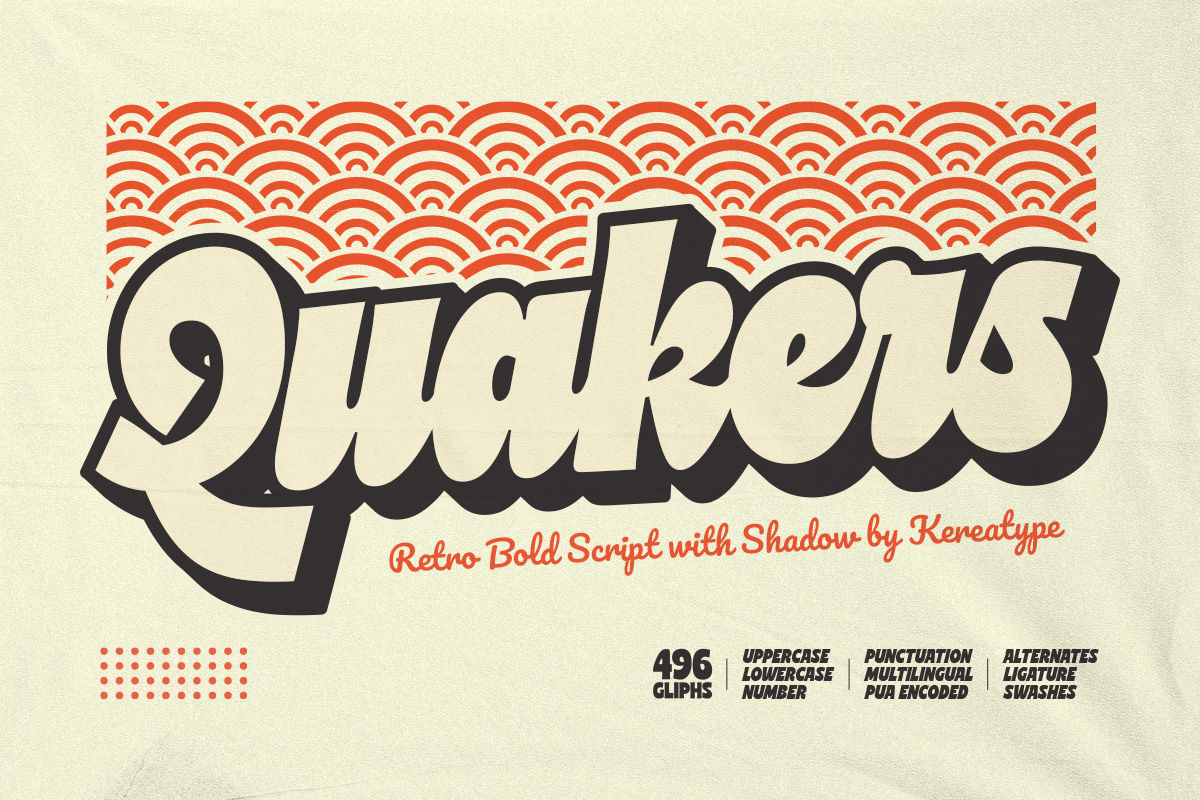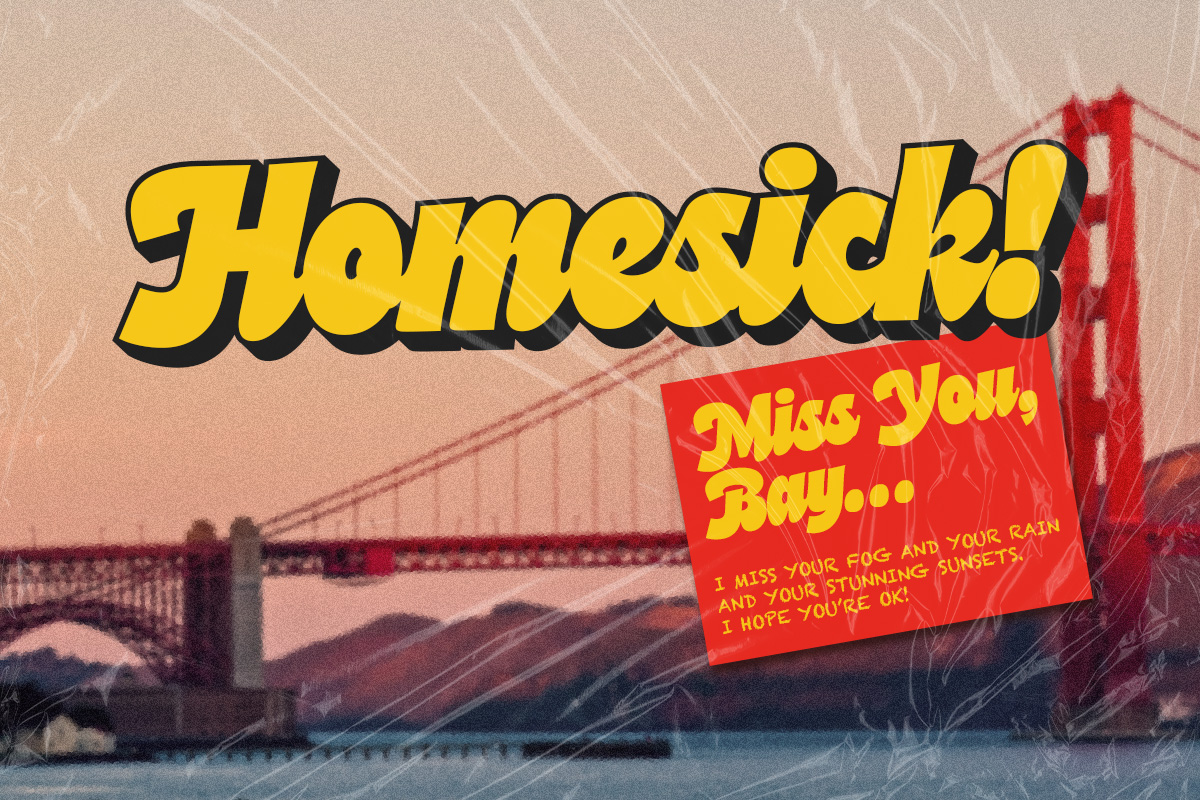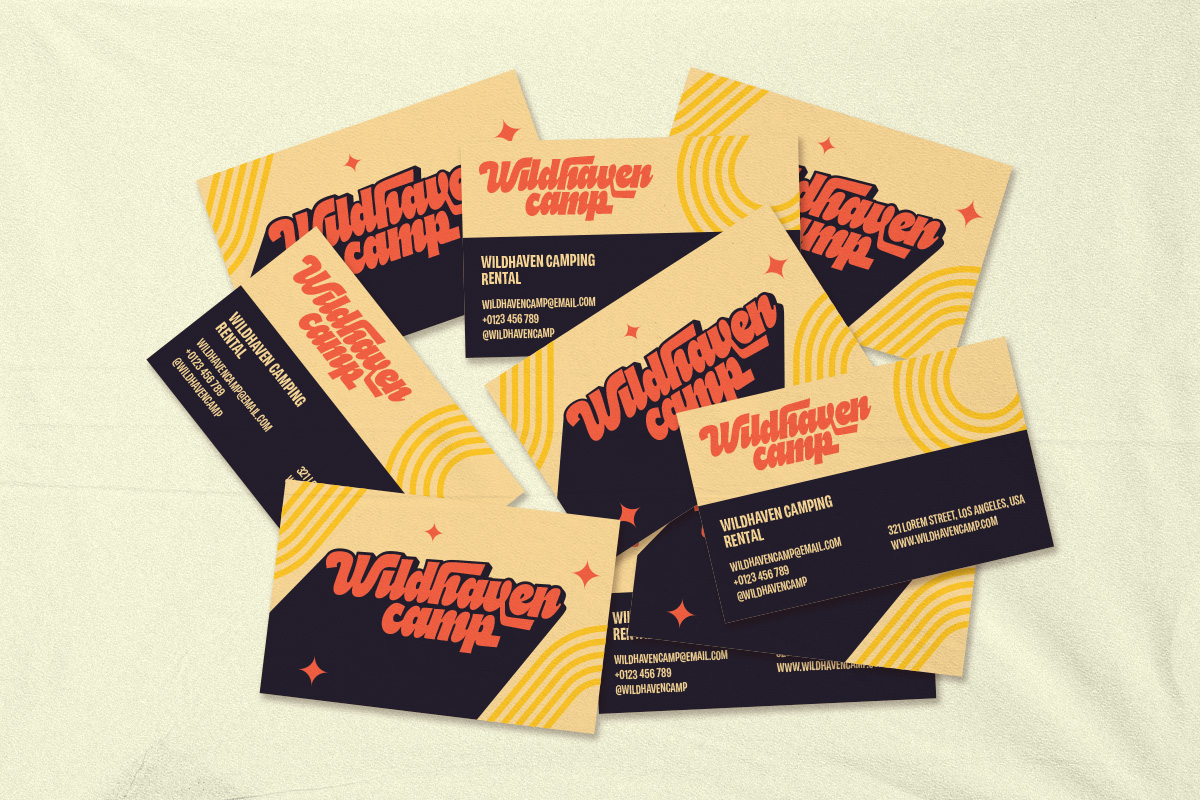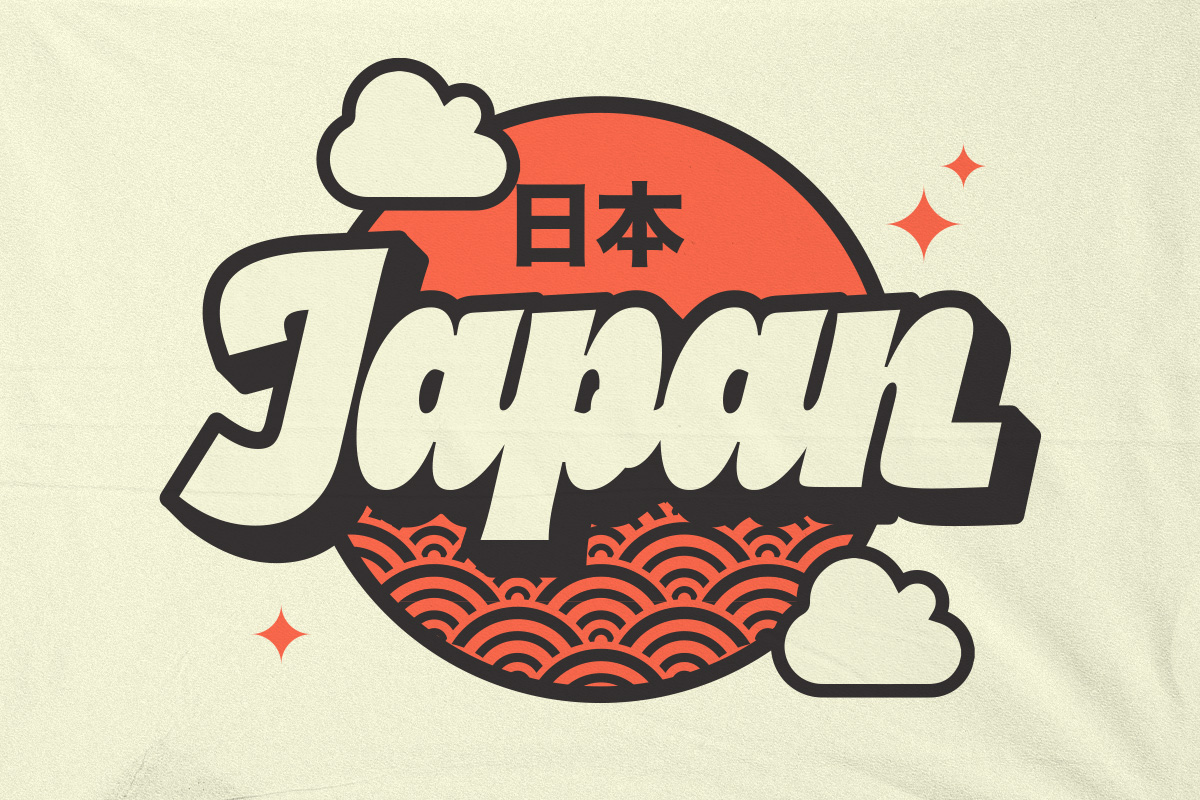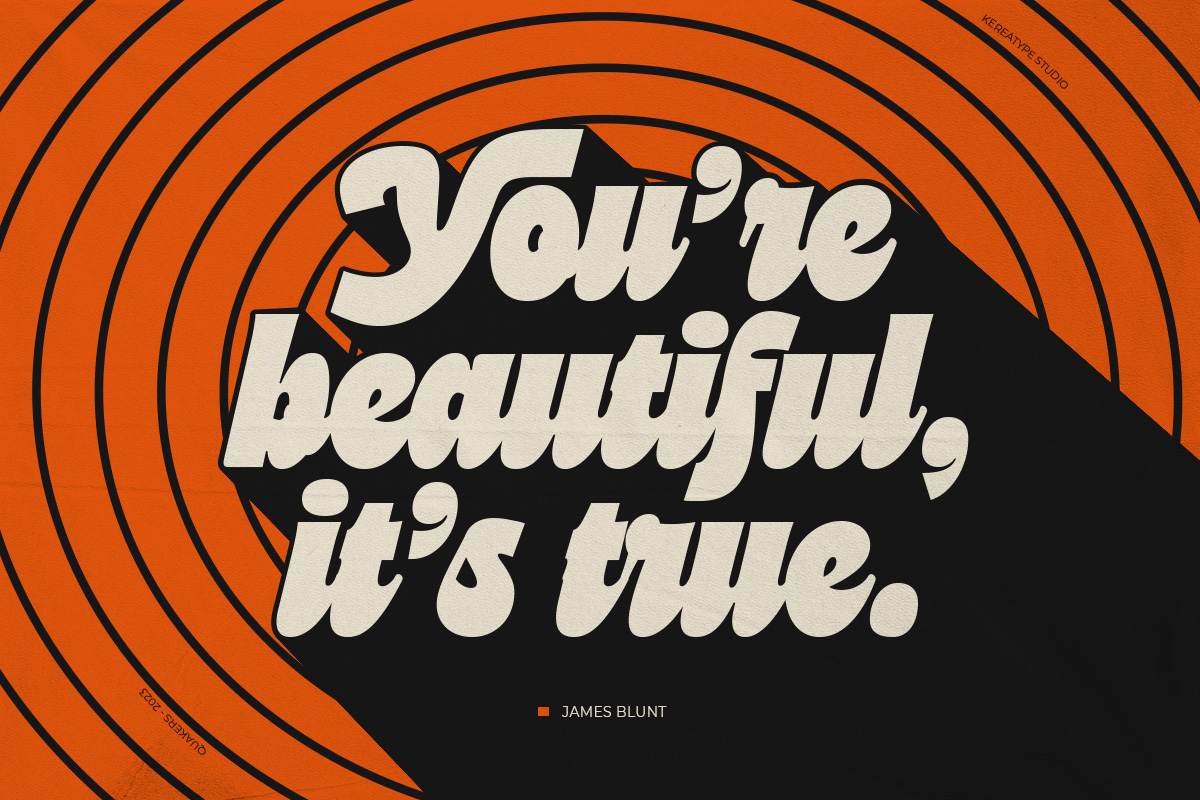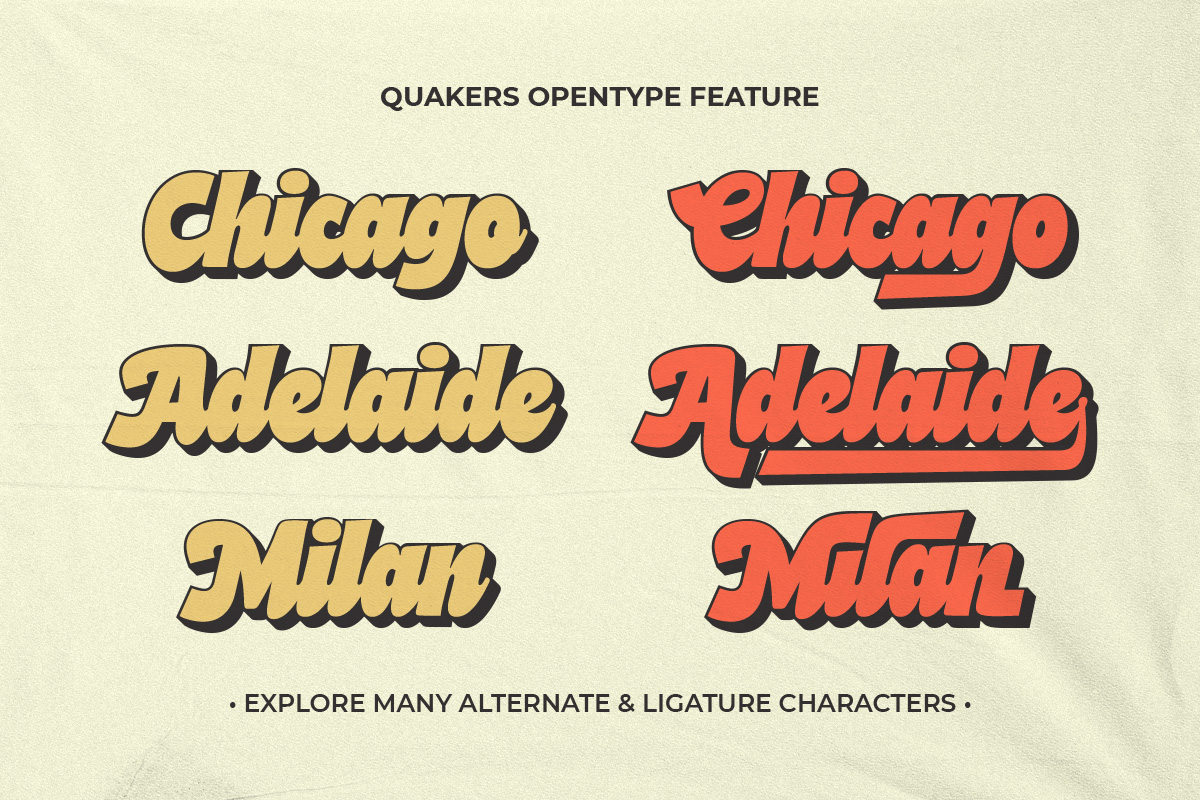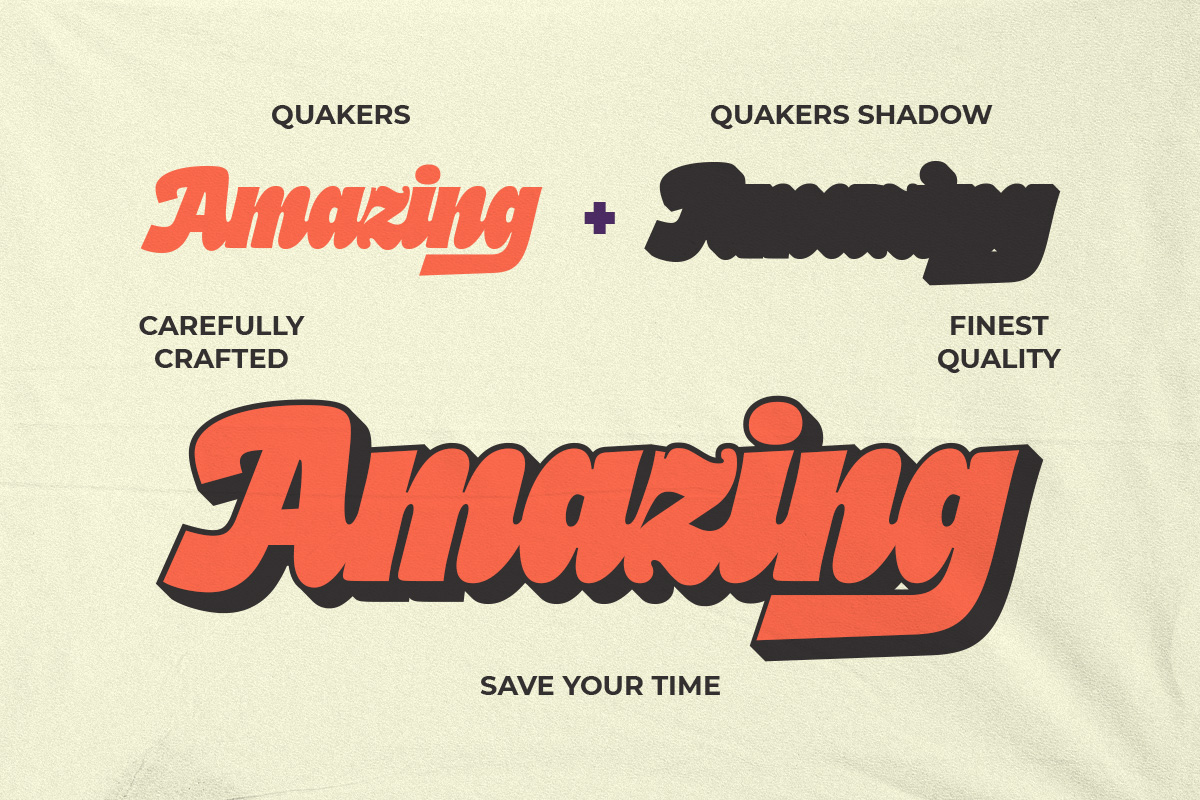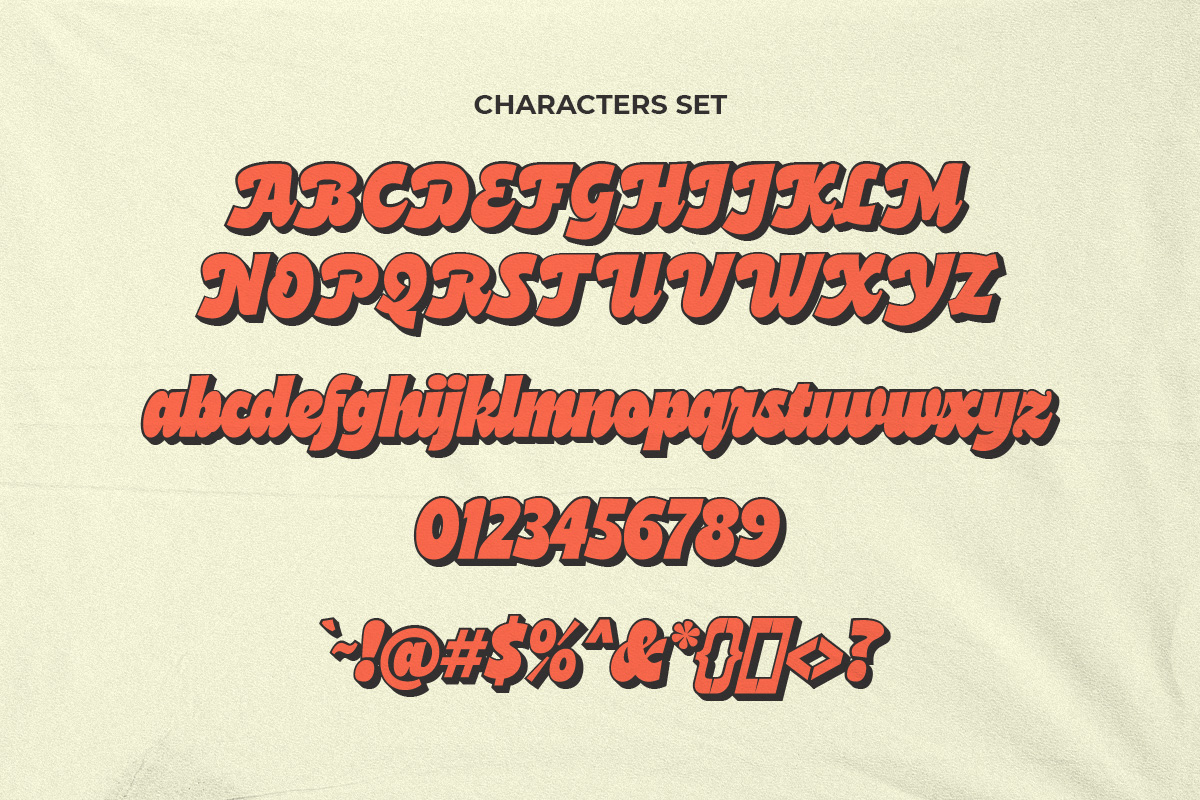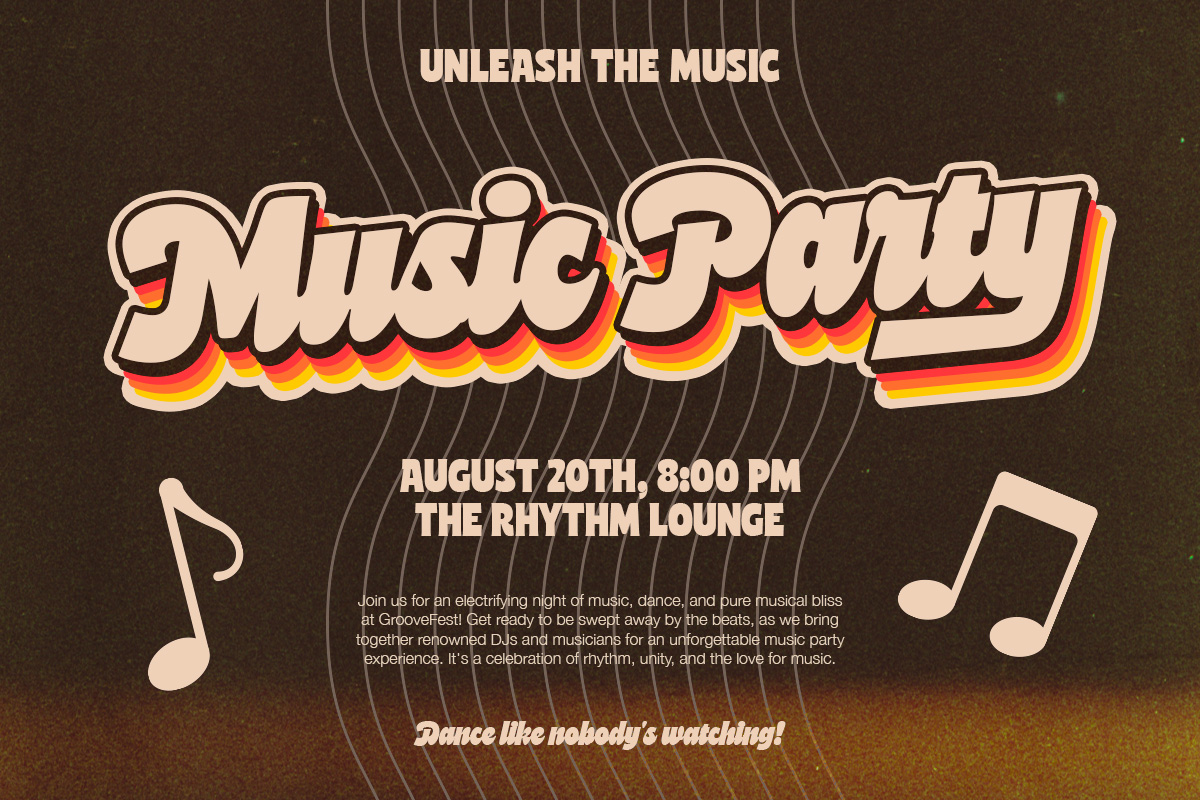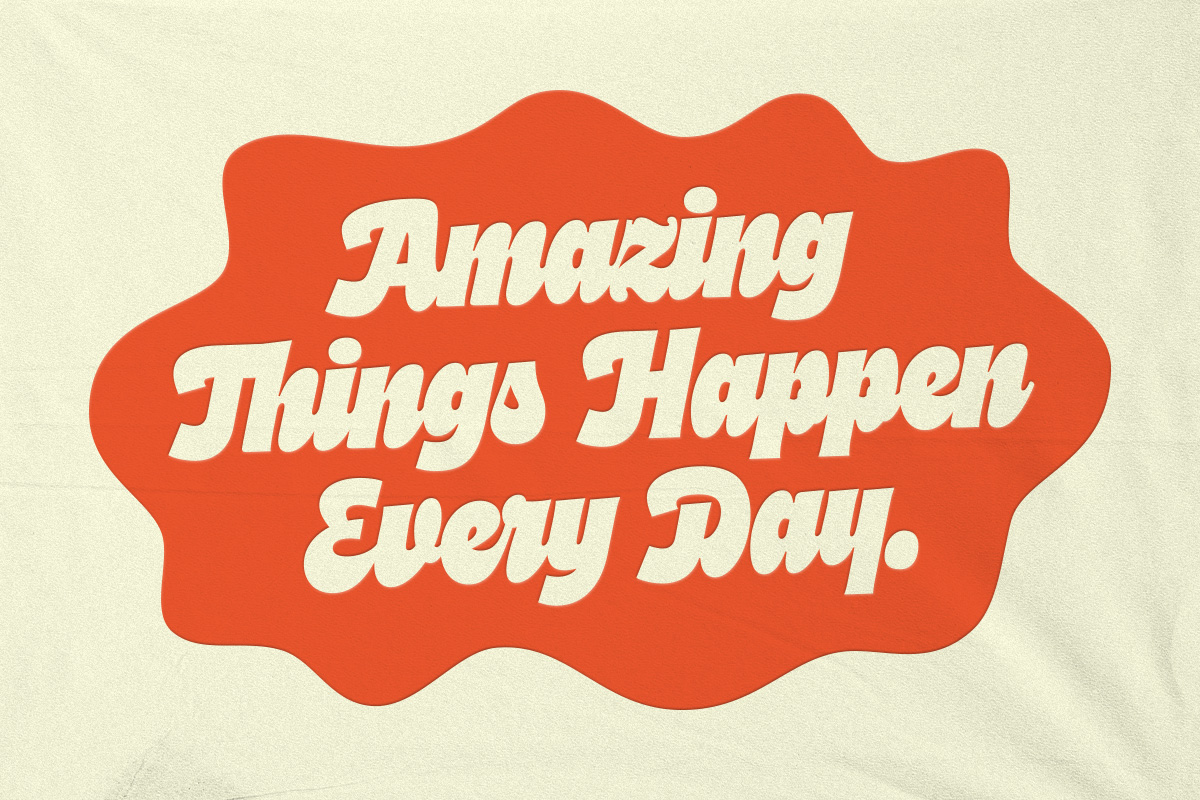
Quakers
A Bold Retro Script And Display Font With High-Contrast Strokes For Vintage Branding, Luxury Packaging, And Artistic Headlines.
Quakers
Bold Vintage Script And Artistic Display
Quakers is a captivating evolution of the ‘Cuanky’ style, transformed into a bold script display typeface that radiates vintage elegance and modern artistic flair. Featuring high-contrast strokes and distinctive, expressive shapes, this font makes every word a statement in luxury branding, editorial layouts, and high-end fashion design. It comes equipped with a time-saving shadow effect, allowing you to effortlessly turn product packaging, wedding invitations, and signage into nostalgic masterpieces. Whether for retro-themed businesses or sophisticated modern headlines, Quakers bridges the gap between refined artistry and bold, timeless sophistication.
Bold Vintage Script And Artistic Display